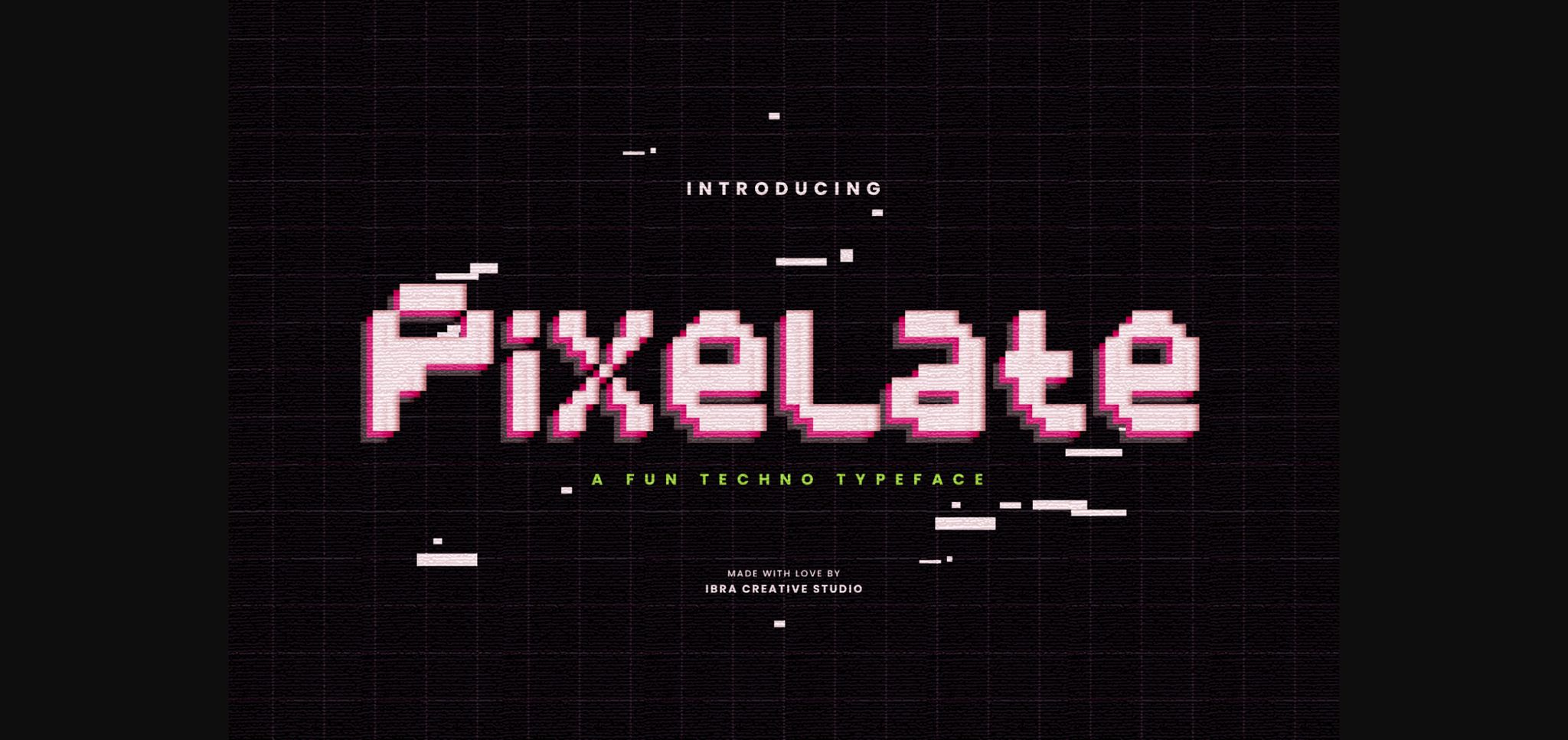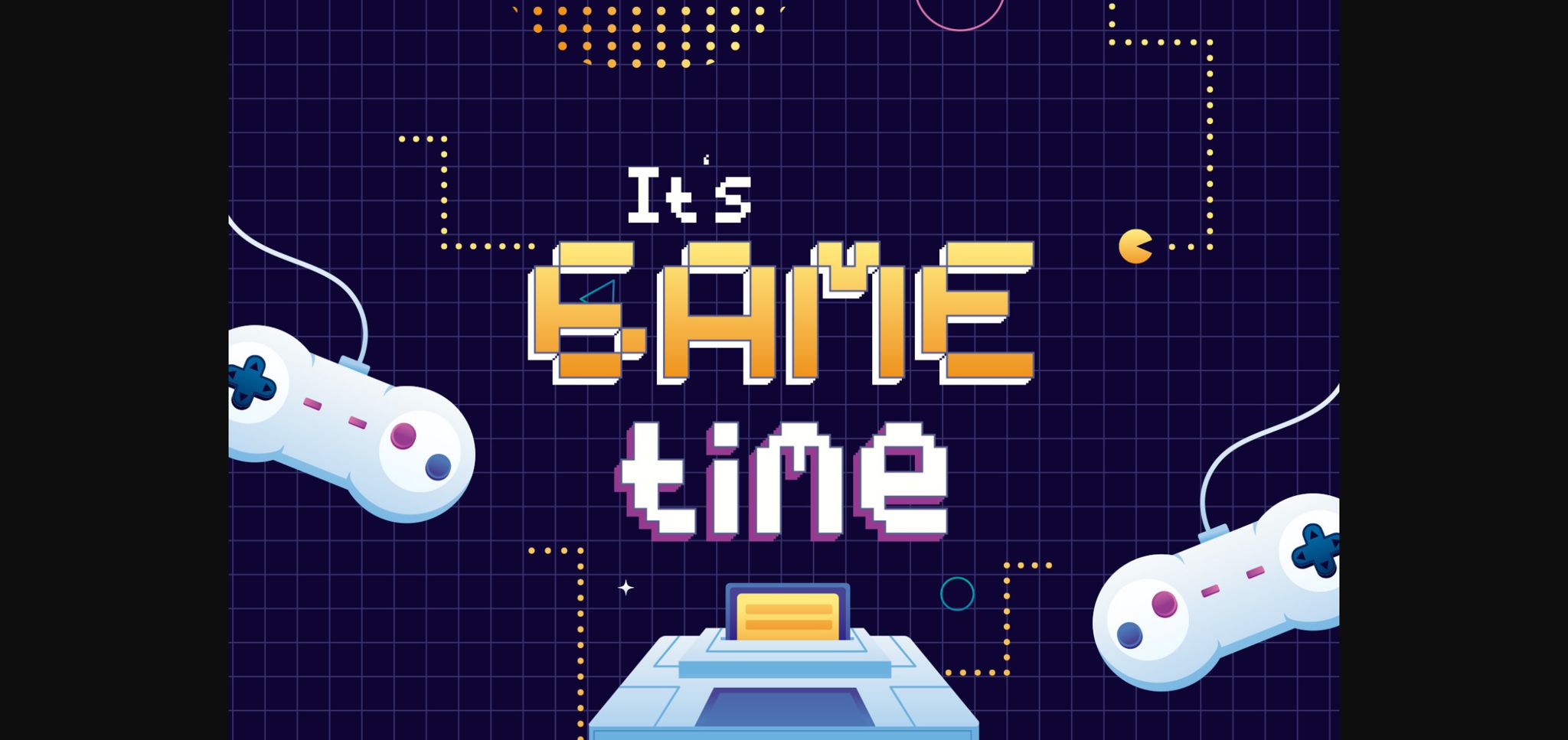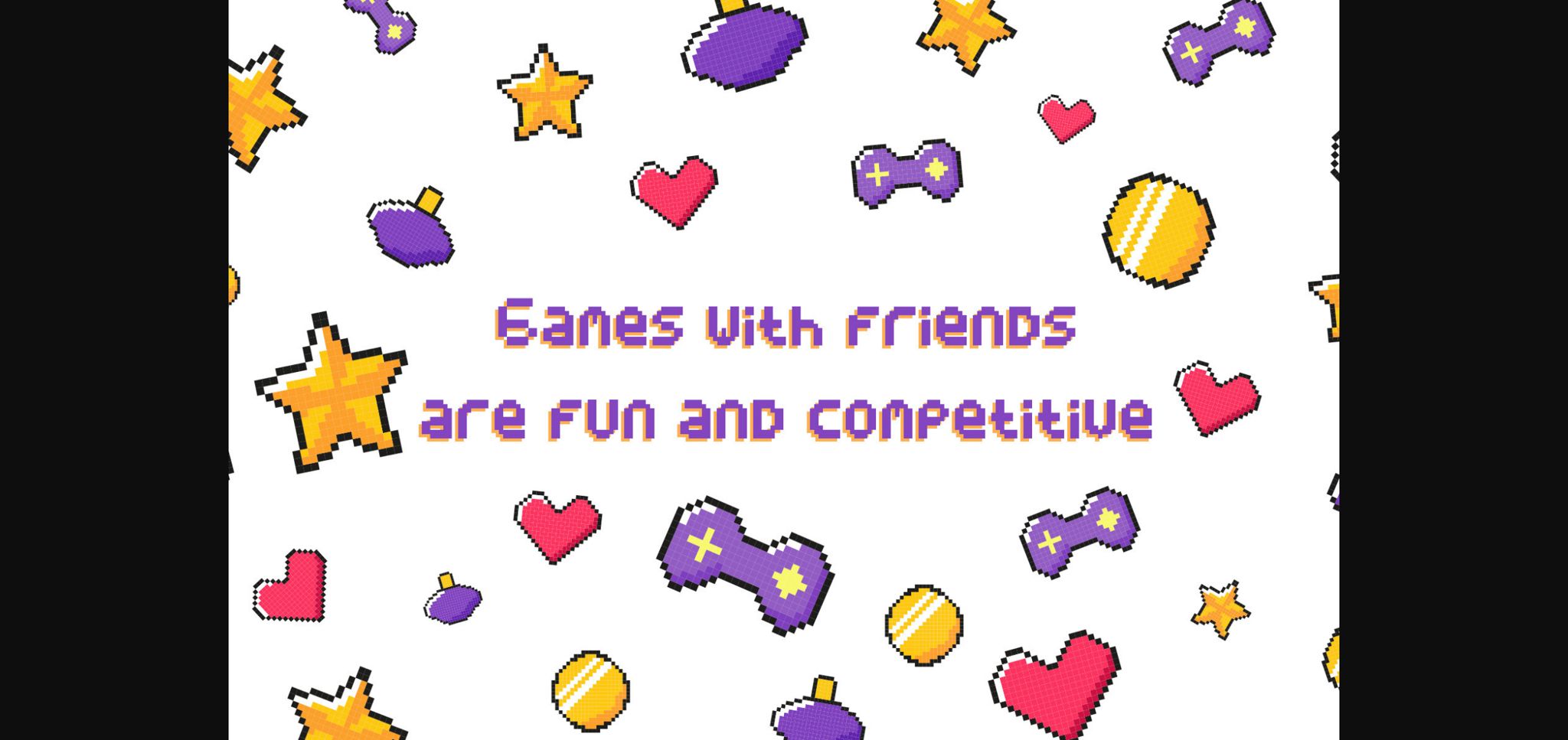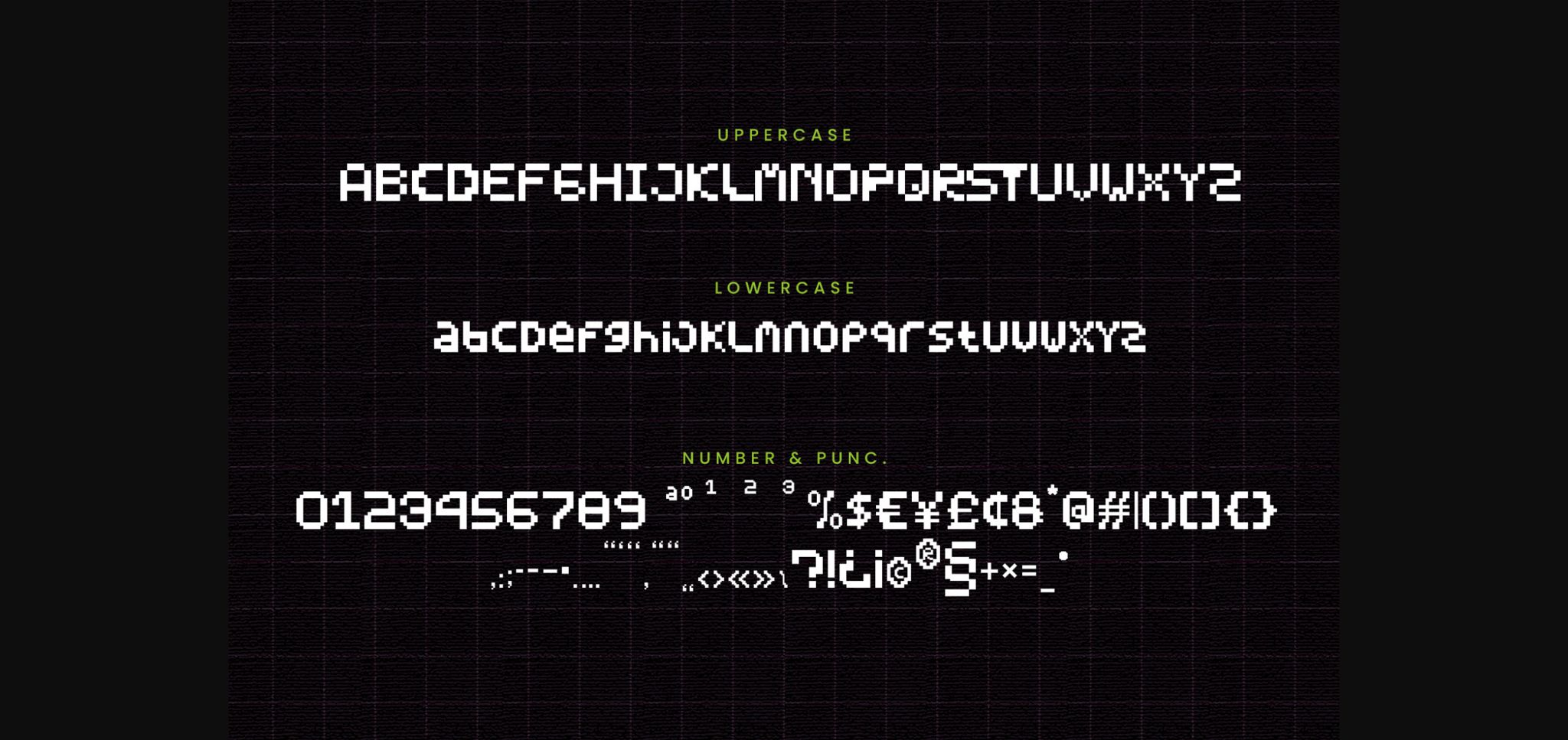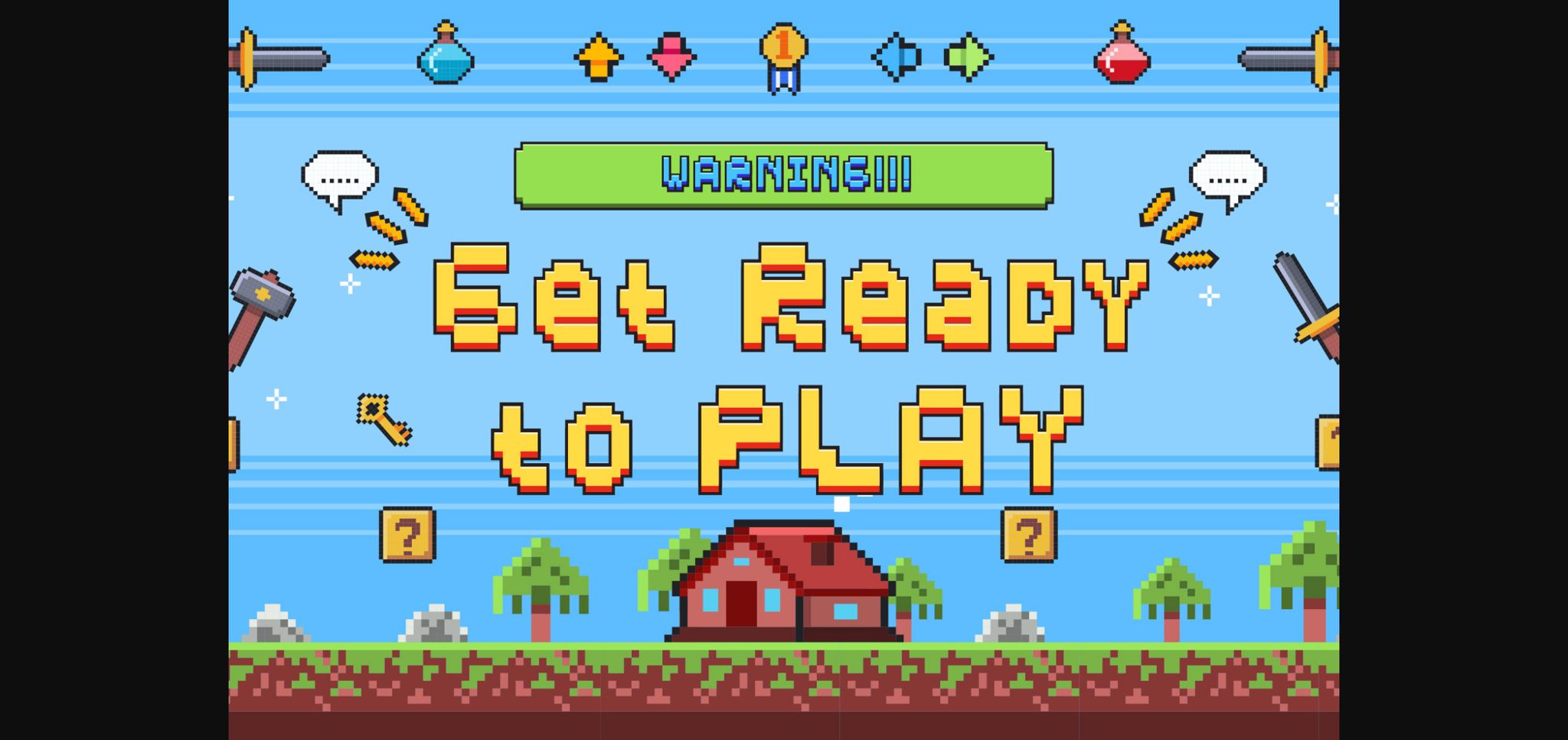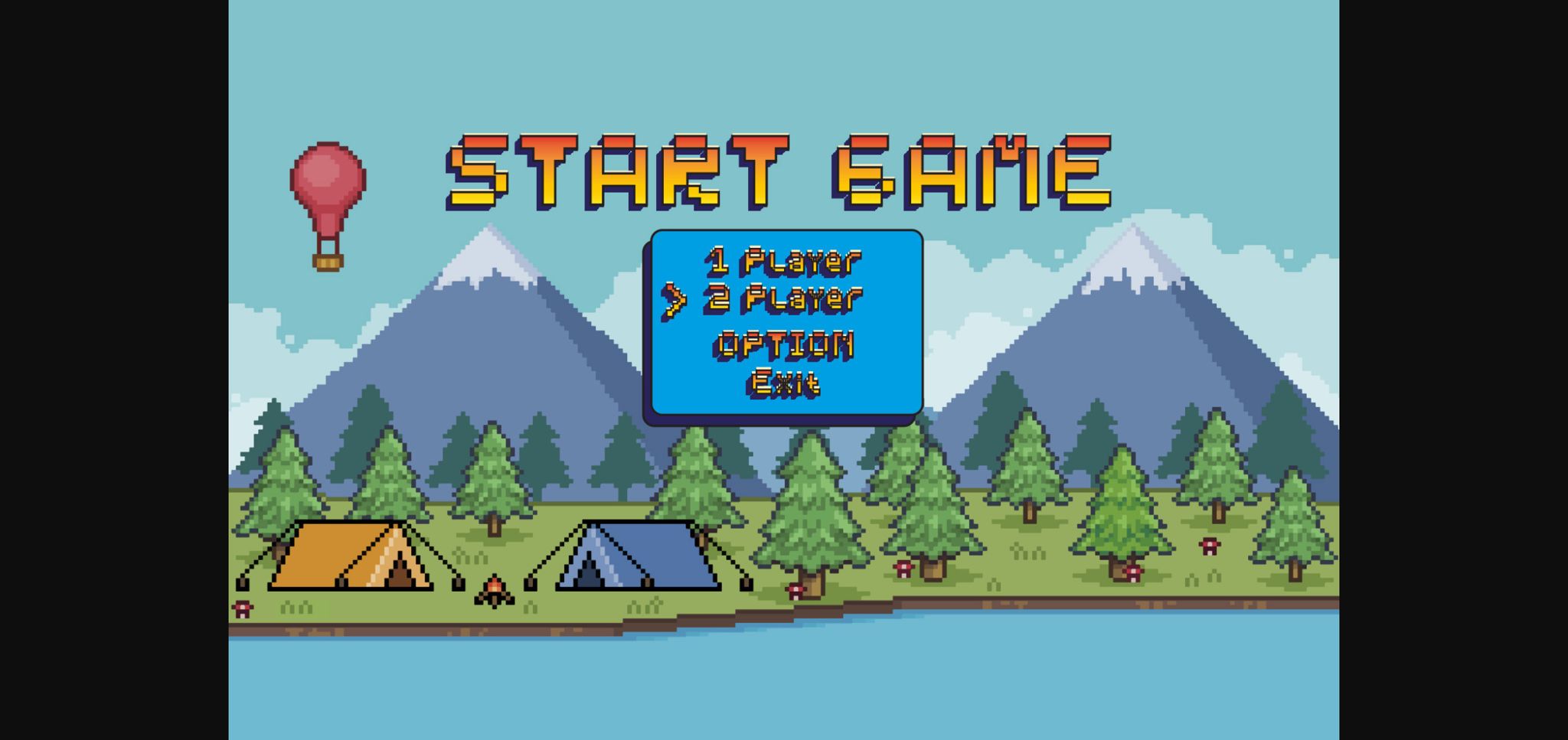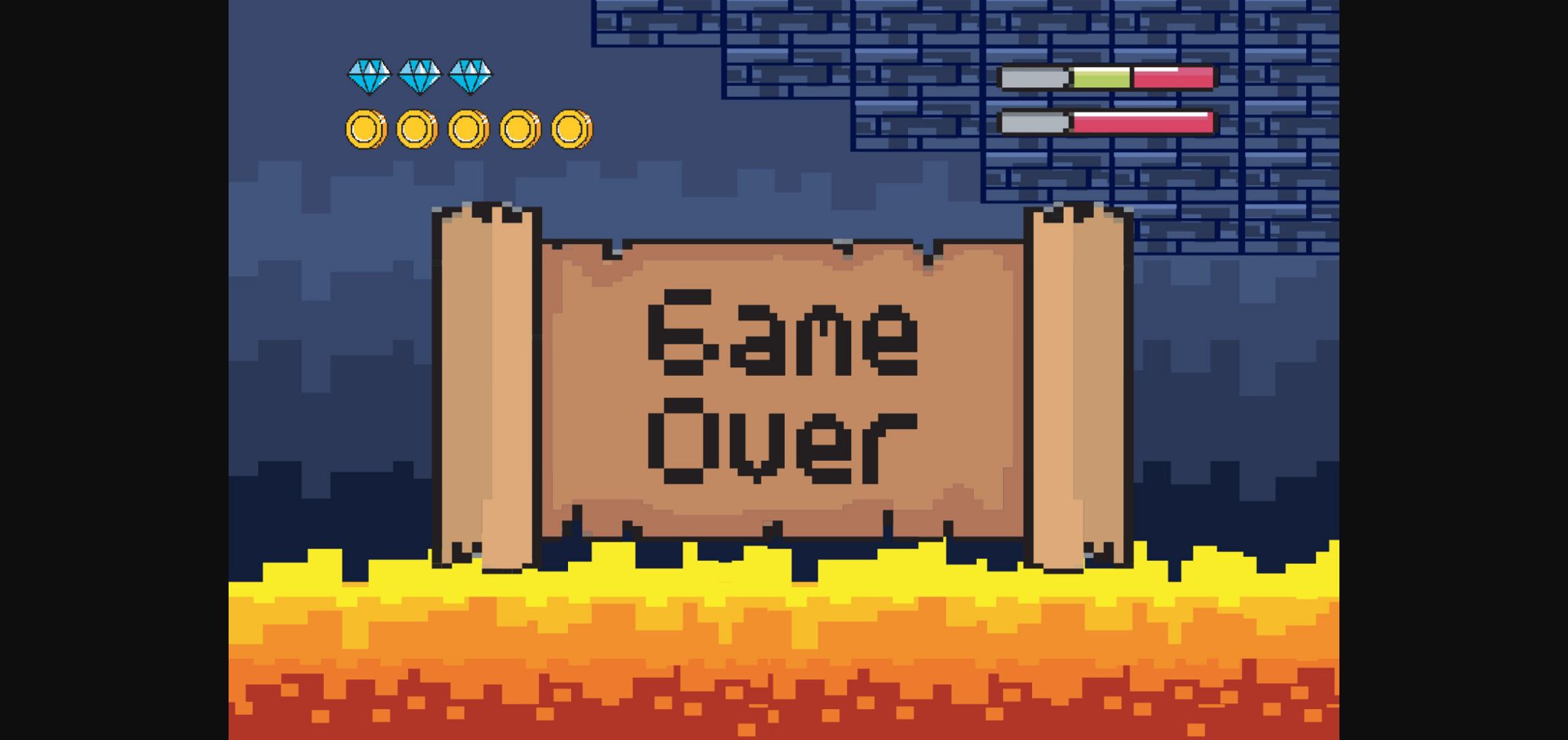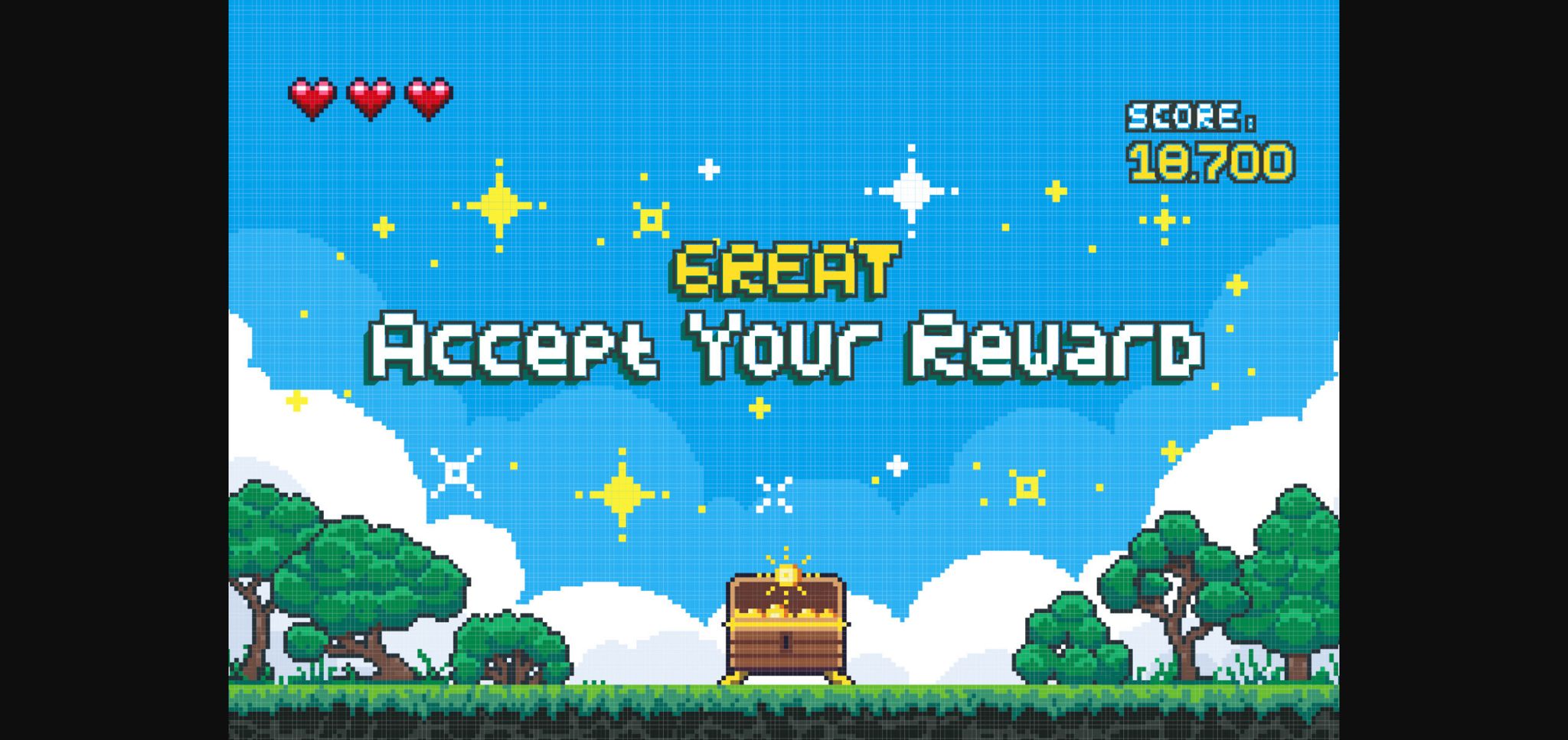
Pixelate Font
About Pixelate Font
Pixelate is a playful and futuristic techno typeface that channels a sense of excitement and digital innovation. Inspired by the pixel art of retro video games and the sleek lines of modern technology, Pixelate combines the best of both worlds. Each letter is crafted with precision, resembling digital pixels and evoking a sense of nostalgia while embracing contemporary design elements. The squared edges and geometric forms create a visually captivating display, making it a perfect choice for technology-related projects, gaming graphics, and futuristic branding. Pixelate injects a dose of fun and energy into any composition, capturing the spirit of the digital age and inviting viewers to embark on a thrilling visual journey.